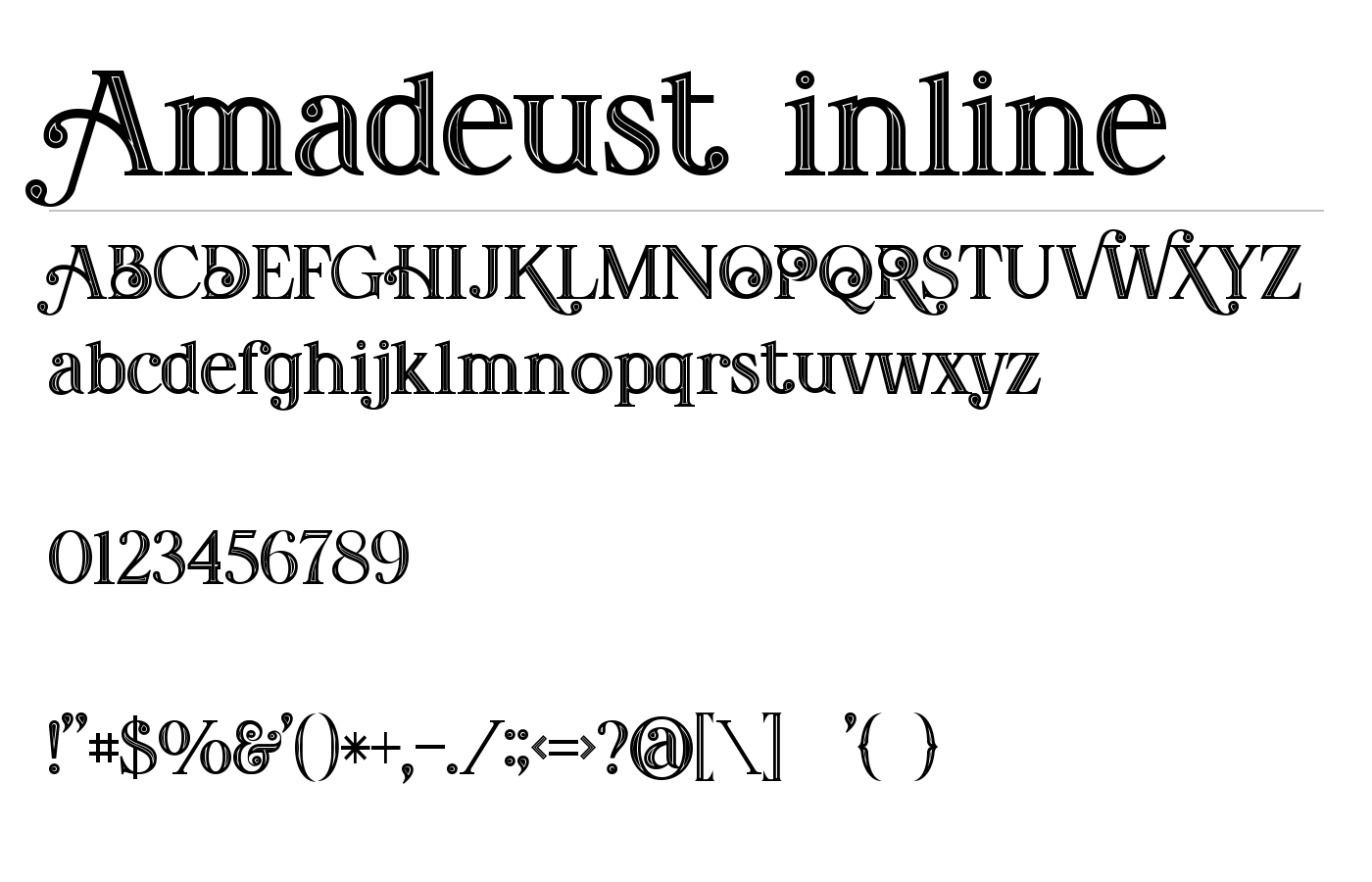
Amadeust Inline is a sophisticated serif font with elegant inline detailing and ornate swashes, giving it a refined yet playful character. It features high contrast strokes and a slightly condensed structure, making it ideal for stylish headlines, logos, and luxury branding that seek a vintage or theatrical flair. This font works well where a distinctive, decorative touch is needed to capture attention and convey elegance.
Amadeust Inline Font
About Amadeust Inline Font
| Font family | Amadeust Inline Font |
| Designer | cruzine |